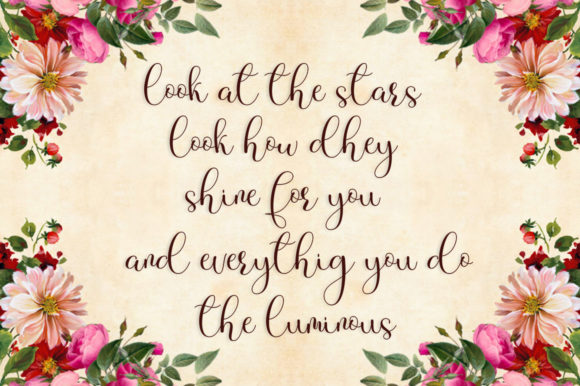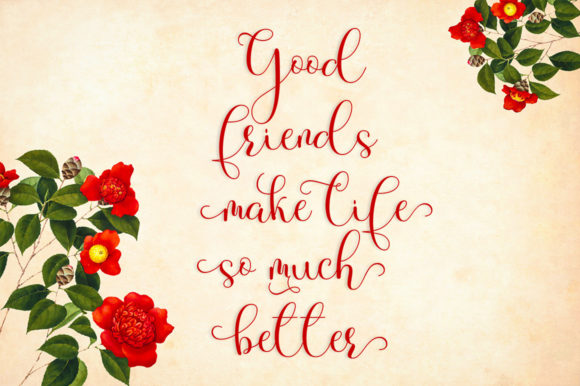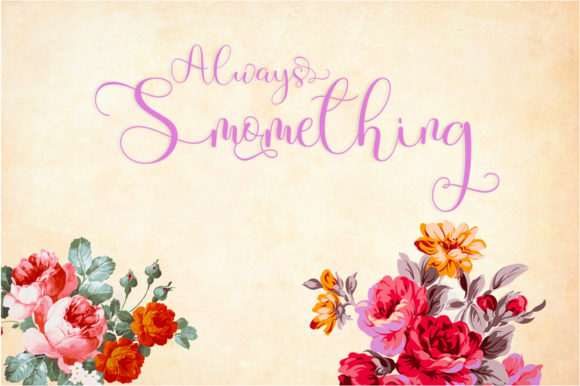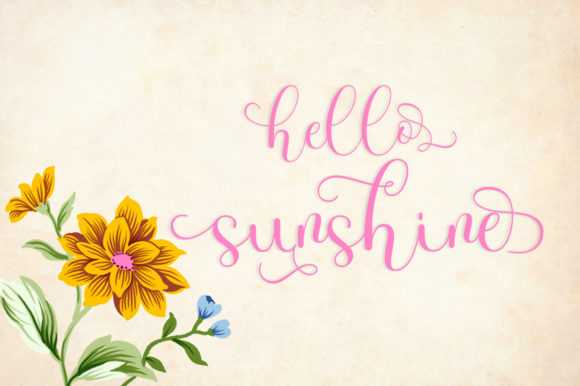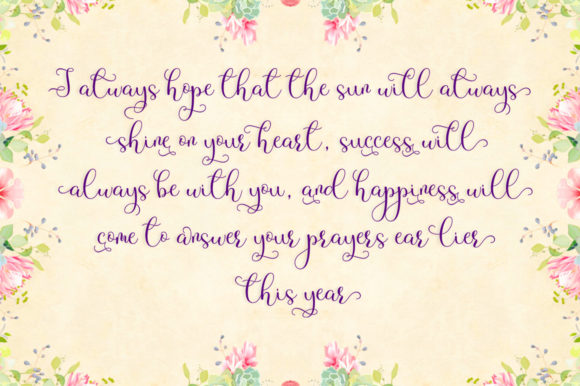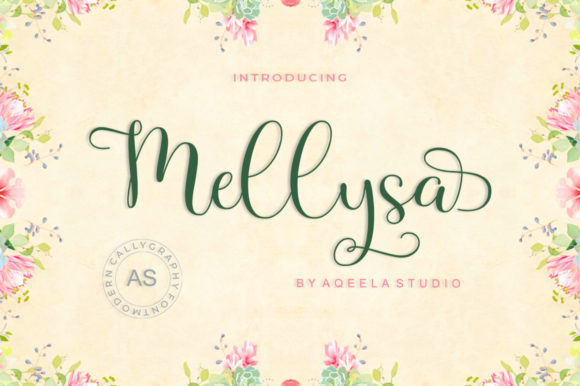
Introduction to Mellysa Font
Have you ever stumbled upon a design that perfectly captures the essence of a creative project, making you wish you could recreate its magic? For designers, discovering a new high-quality font can be just as exciting. I still remember the moment I found the Mellysa Font, and it instantly elevated my design game. The moment I saw its elegant, dancing characters, I knew I had to learn more about this versatile font.
The Mellysa Font is a modern calligraphy font that brings a touch of sophistication to any design. Its unique style makes it perfect for adding an elegant touch to logos, wedding invitations, headings, and much more. Whether you’re working on a creative project or simply looking for a design resource to elevate your work, the Mellysa Font is definitely worth exploring.
Mellysa Font
- High-quality, elegant design suitable for creative projects, with a sophisticated and modern look.
- Comes with a transparent background, making it easy to customize and combine with other design elements.
- Includes multiple font styles and weights, allowing for a wide range of creative possibilities.
- Unique characteristics include its fluid, cursive script and intricate details, making it perfect for adding a touch of elegance to any design project.
Honest Review: Mellysa Font
I recently came across the Mellysa Font, and I must say it’s a great addition to any designer’s toolkit. This font is perfect for high-quality creative projects that require a unique touch. Its stylish design and versatility make it an excellent choice for designers looking to elevate their work.
Here are some of the key features that I like about the Mellysa Font:
- ✨ Unique and stylish design
- ✨ High-quality and clear typography
- ✨ Transparent background for easy design placement
- ⚠️ Limited character set
Overall, I’m impressed with the Mellysa Font and its potential to enhance any creative project. Its unique design and transparent background make it a valuable addition to any designer’s toolkit. If you’re looking for a high-quality font for your next project, I highly recommend giving the Mellysa Font a try.
The Mellysa Font can be used with a transparent background, making it perfect for designs that require a clean and minimalist look.
The Mellysa Font is perfect for:
- Graphic design projects.
- Web design projects.
- Print design projects.
- Any project that requires a high-quality, creative font.